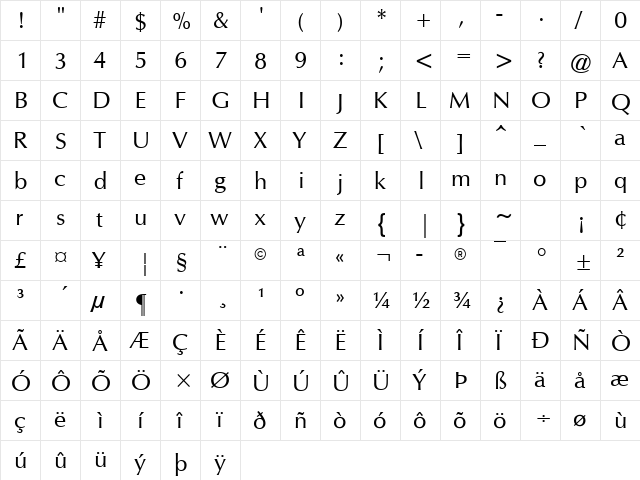
Omichron Regular
Design Context for Omichron Typeface
Omichron offers clean, dependable letterforms without strong stylistic allegiance, making it a practical choice for designers who need flexibility.